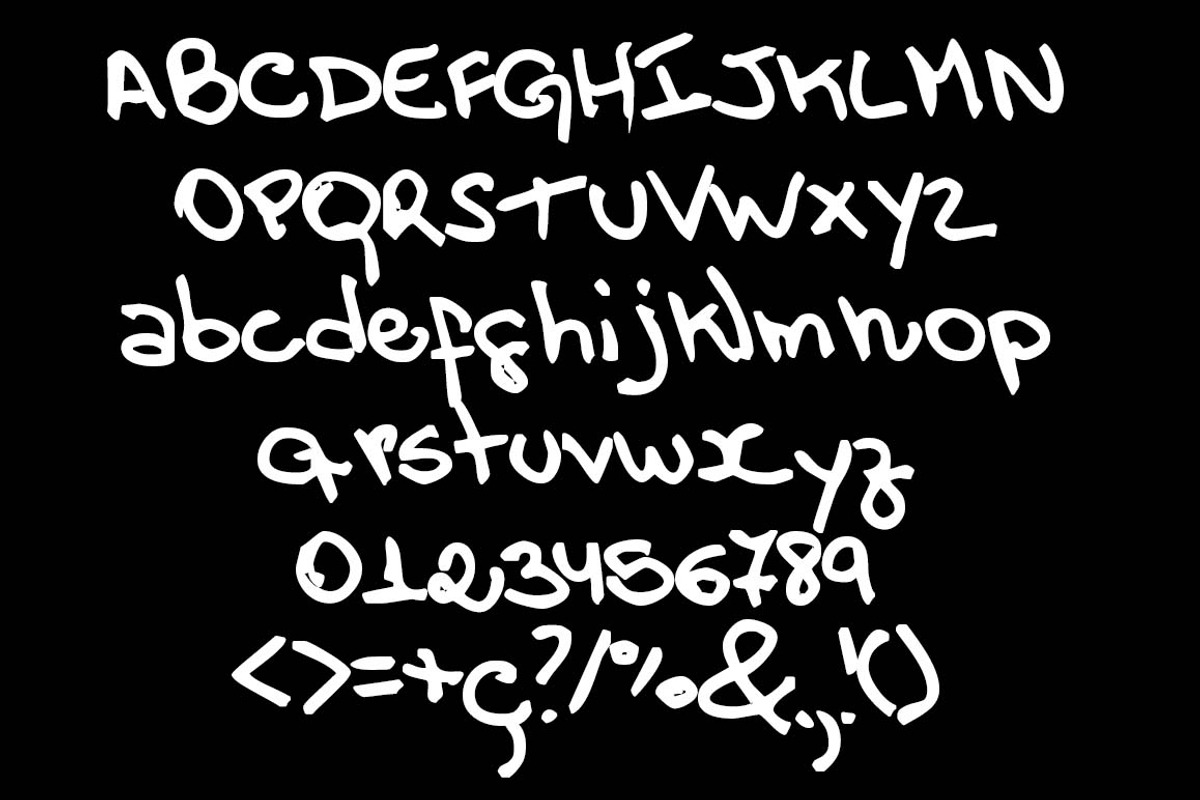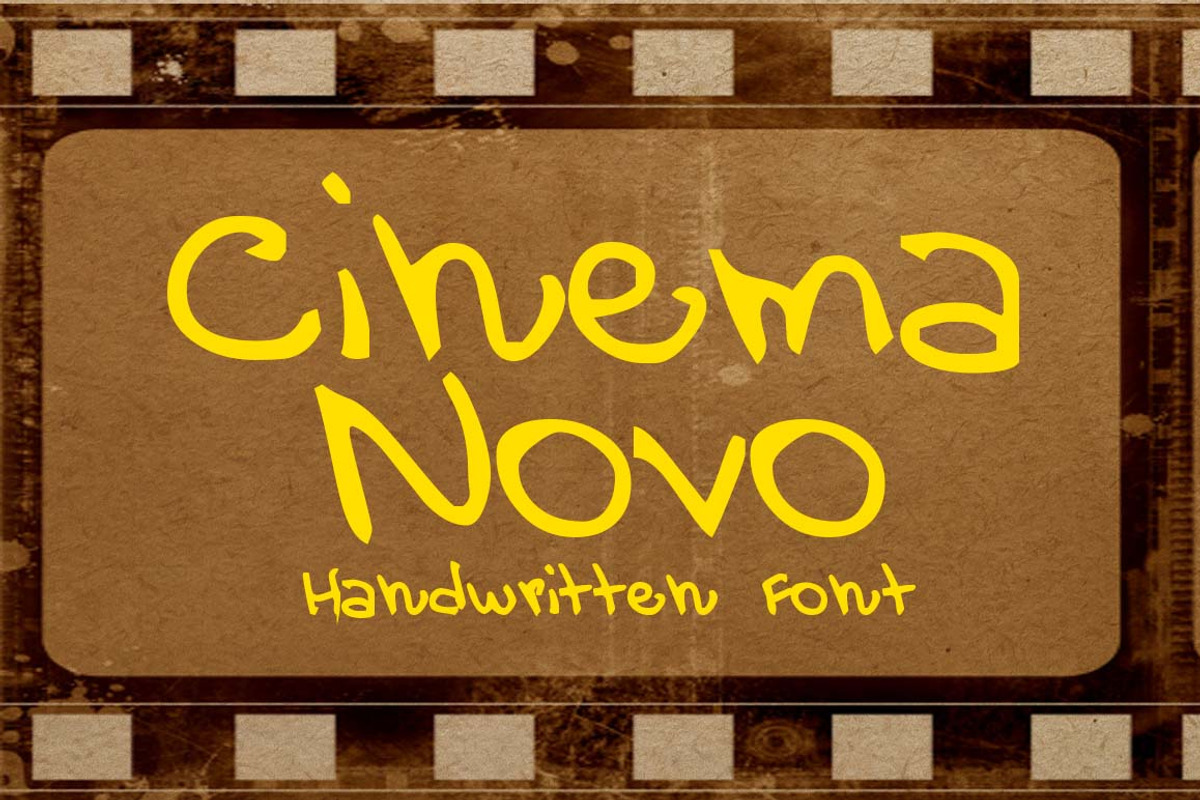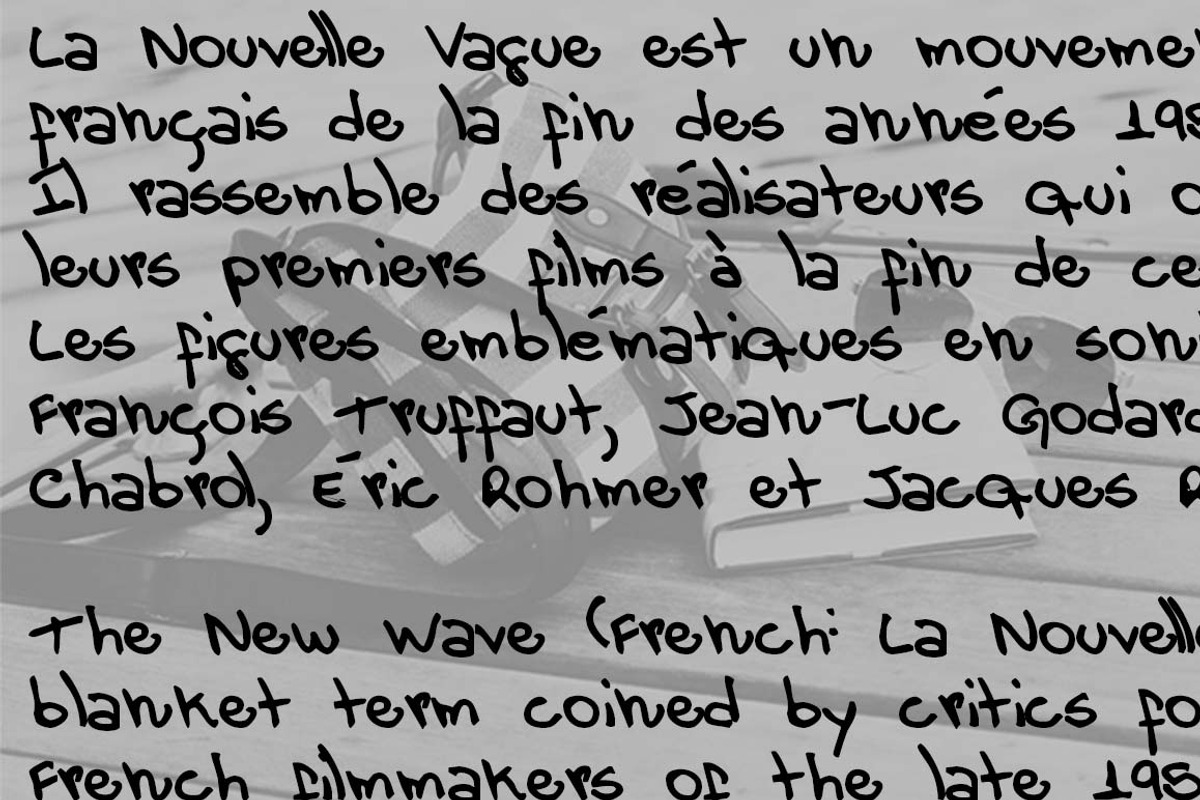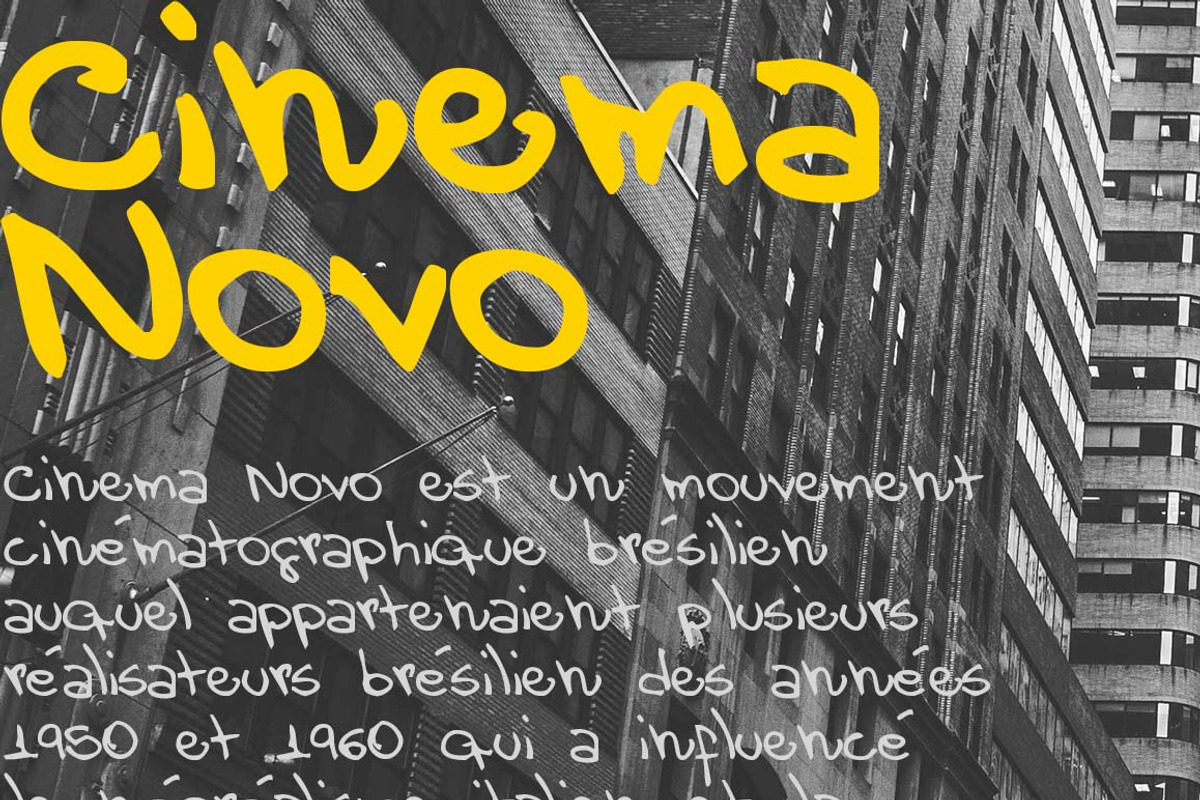
Cinema Novo Font
Cinema Novo Font by Minhocossauro Emporium is a font selected for branding, posters, packaging, typography.
Why Cinema Novo Font is worth a look
Cinema Novo Font by Minhocossauro Emporium fits naturally into Branding, posters, packaging, typography.